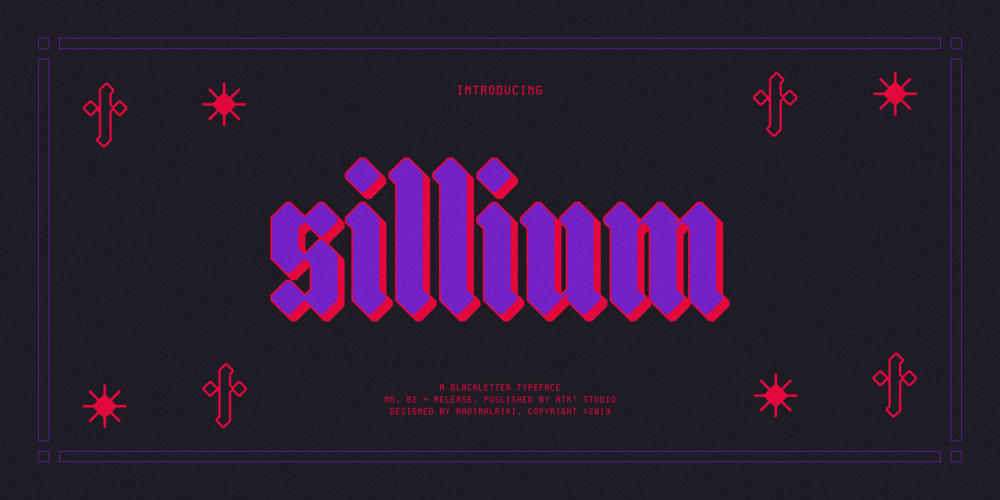
Sillium Font Family was designed by Radinal Riki and published by ATK Studio. Sillium contains 1 styles and family package options. Inspired by blackletter type styles. Sillium is built on modular basis. As a result, it excels in a wide range of display settings, logotypes, and short text. Determine the grid and create a complete set of cohesive characters (a-z) and multilanguage characters (latin based) in either lowercase or uppercase.